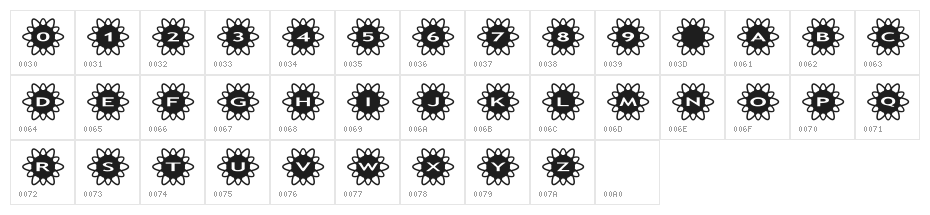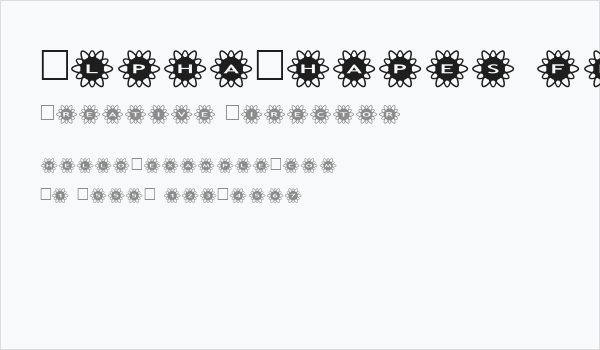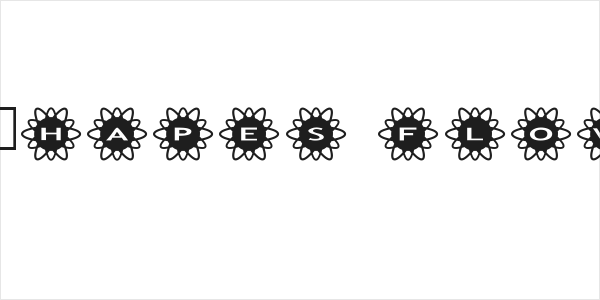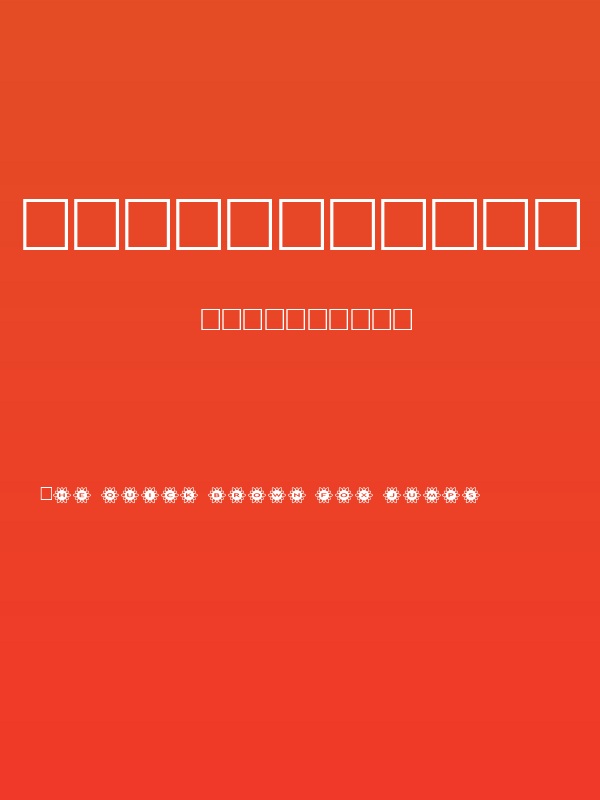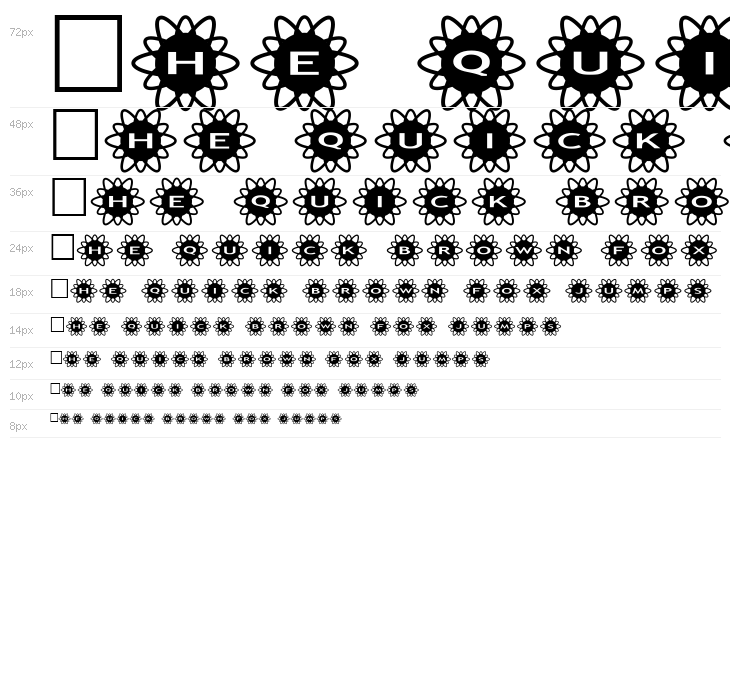
AlphaShapes flowers 2 Font
AlphaShapes flowers 2 Description
This decorative font features uppercase letters and numbers encased in flower shapes, creating a playful and whimsical appearance. Each character is centered within a flower, with petals radiating outward, giving a unique and eye-catching look. The bold, sans-serif style of the letters contrasts with the delicate floral design, making it suitable for projects that require a touch of nature or a fun, lighthearted theme. The font's distinct style ensures that it stands out, making it ideal for creative and artistic applications.
| Proposed Projects | Ideal for greeting cards, children's books, party invitations, and decorative posters. |